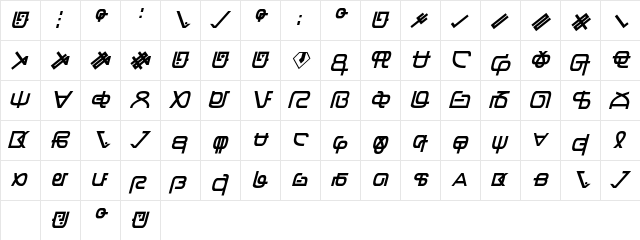
Zentran Italic
| Foundry | Neale Davidson |
| Designer | Neale Davidson |
Design Context for Zentran Typeface
Zentran is a composed and adaptable typeface that performs quietly and consistently across a wide range of design contexts. Its italic angle brings a sense of urgency and motion to the letterforms.
Pro Tip: Use Zentran for emphasis, pull quotes, and subheadings where its slanted energy can add rhythm to the layout.